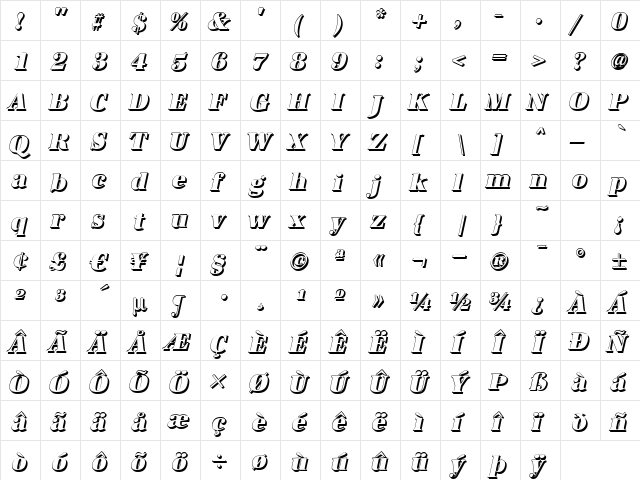
AntiquaSh-Cd-Heavy Italic
Design Context for AntiquaSh-Cd-Heavy Typeface
AntiquaSh-Cd-Heavy offers clean, dependable letterforms without strong stylistic allegiance, making it a practical choice for designers who need flexibility. The slanted form adds forward momentum and visual energy.
Pro Tip: Use AntiquaSh-Cd-Heavy for emphasis, pull quotes, and subheadings where its slanted energy can add rhythm to the layout.